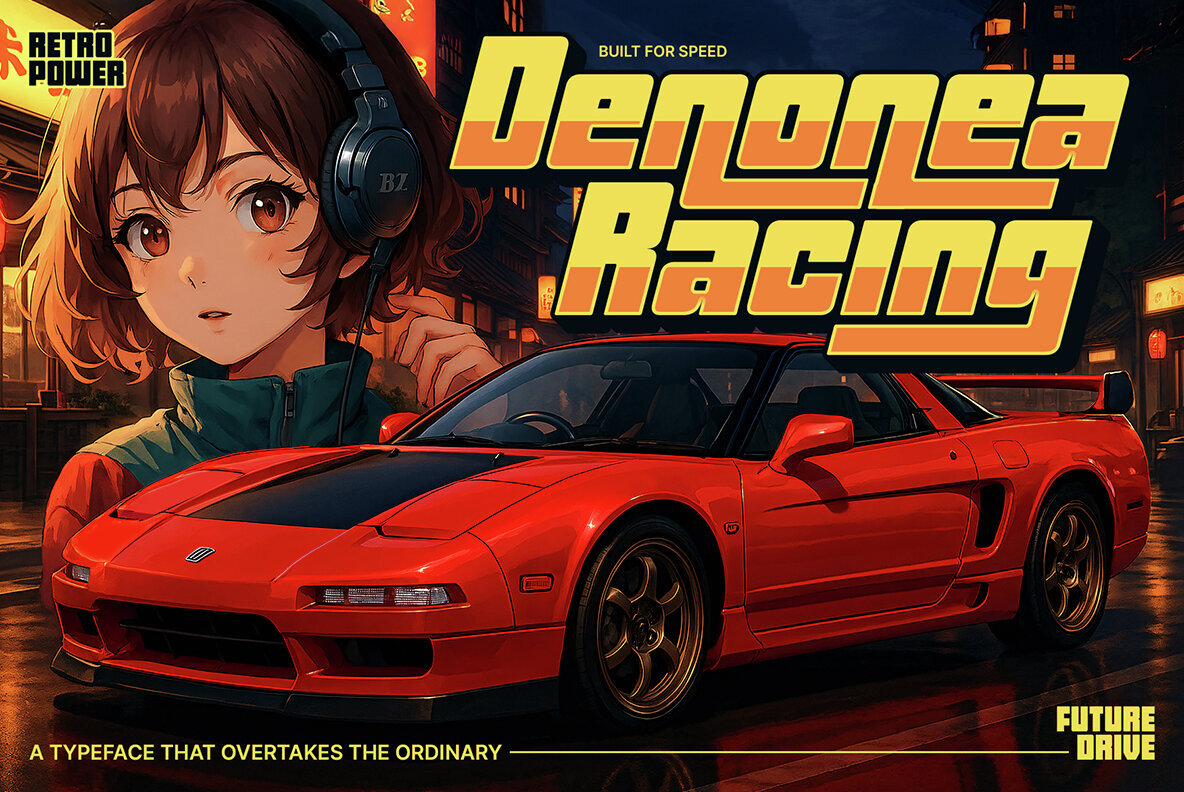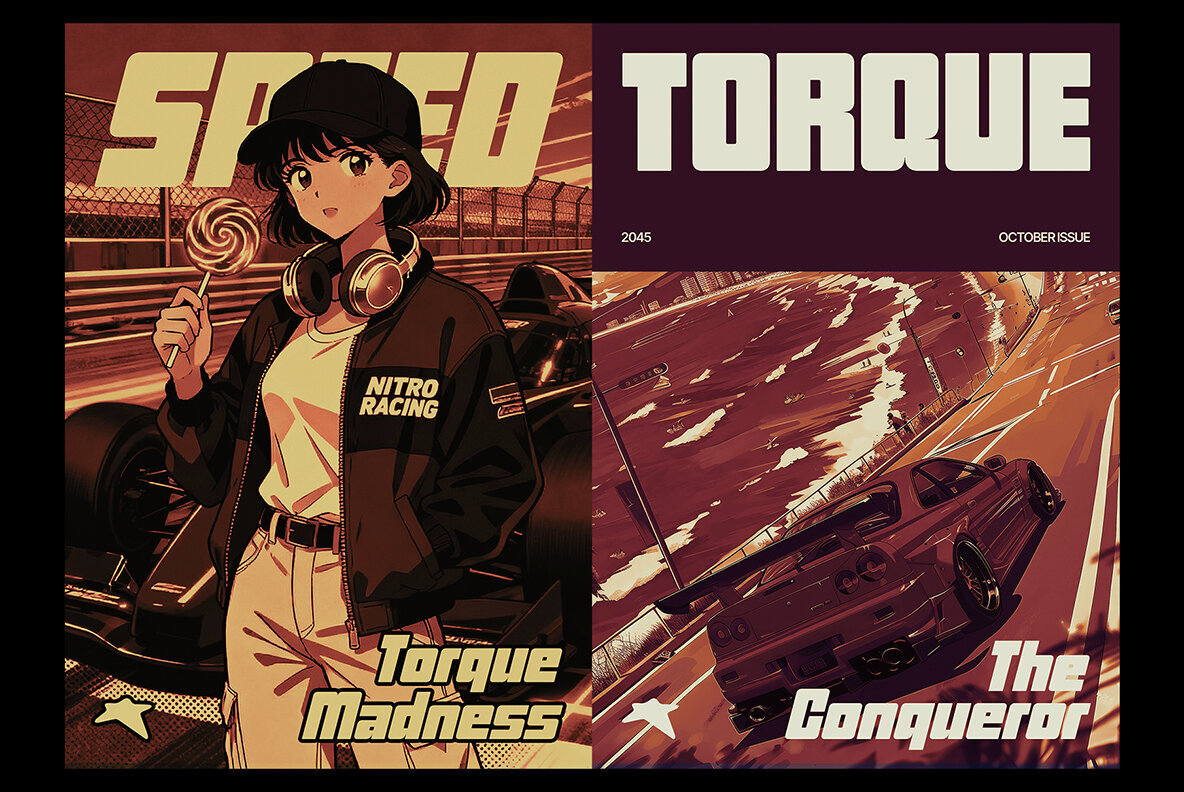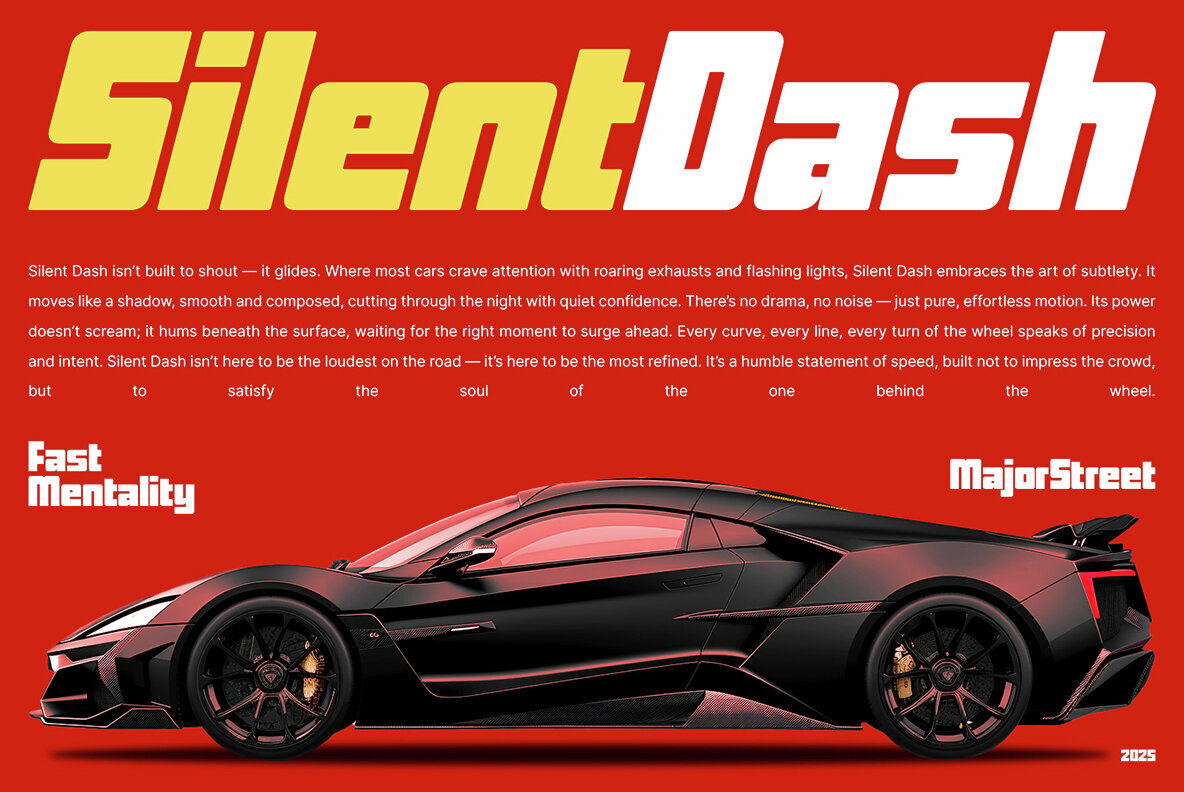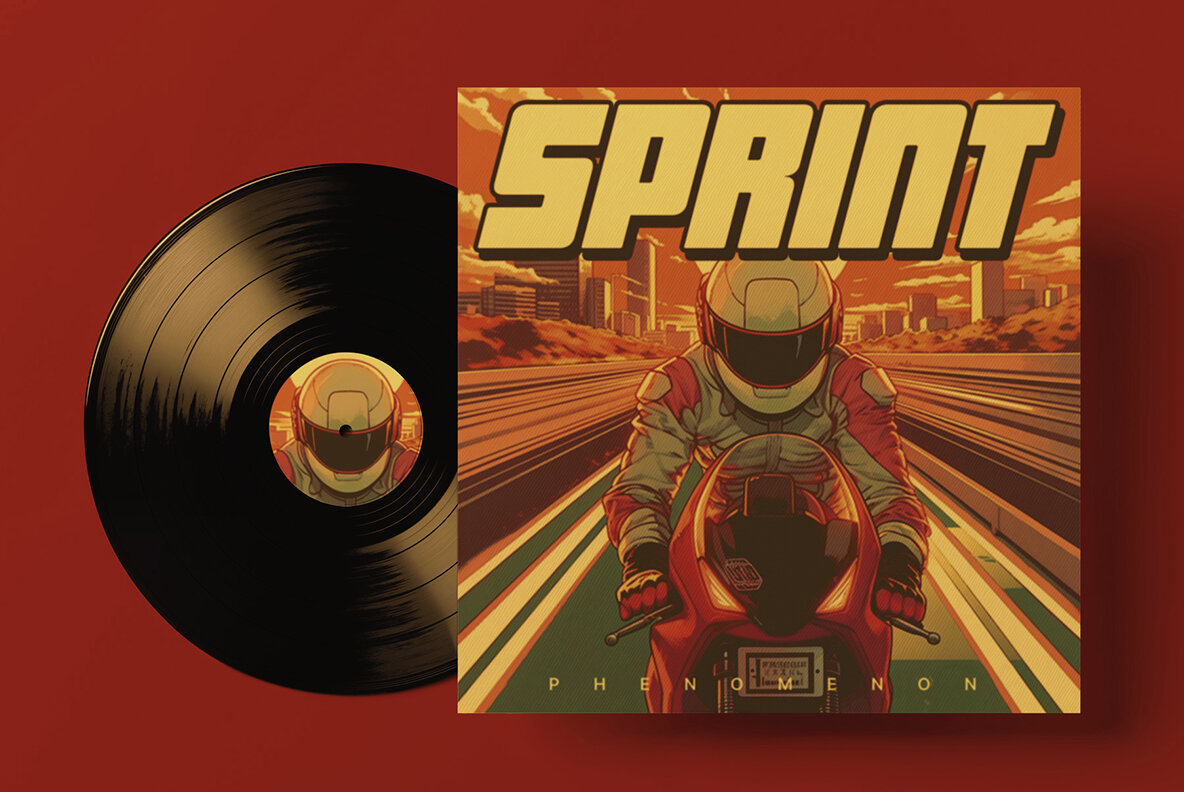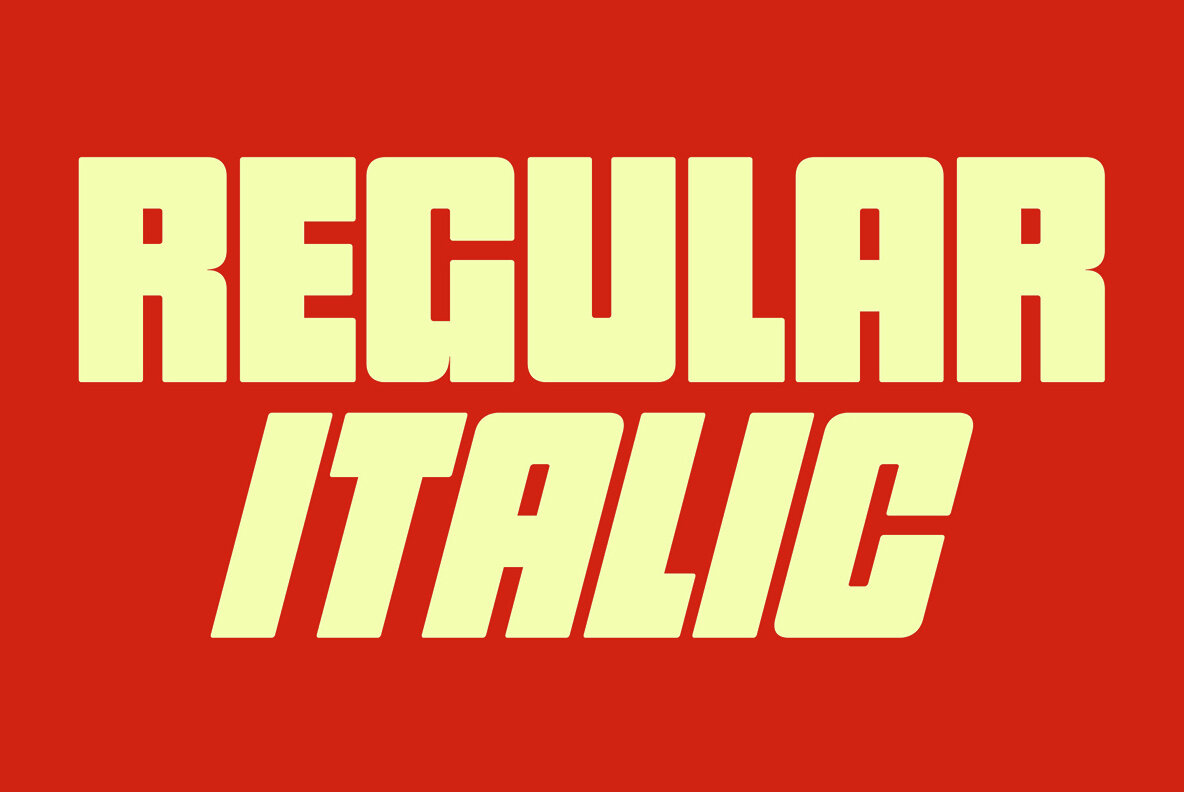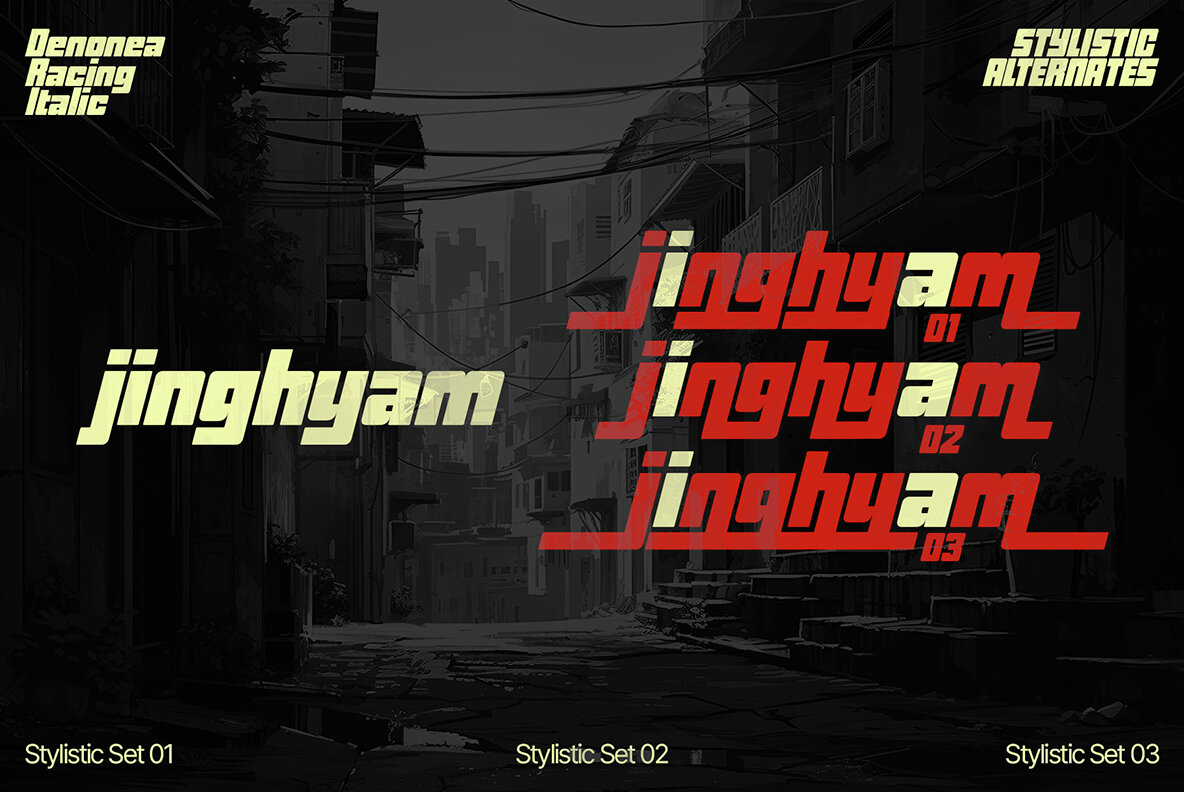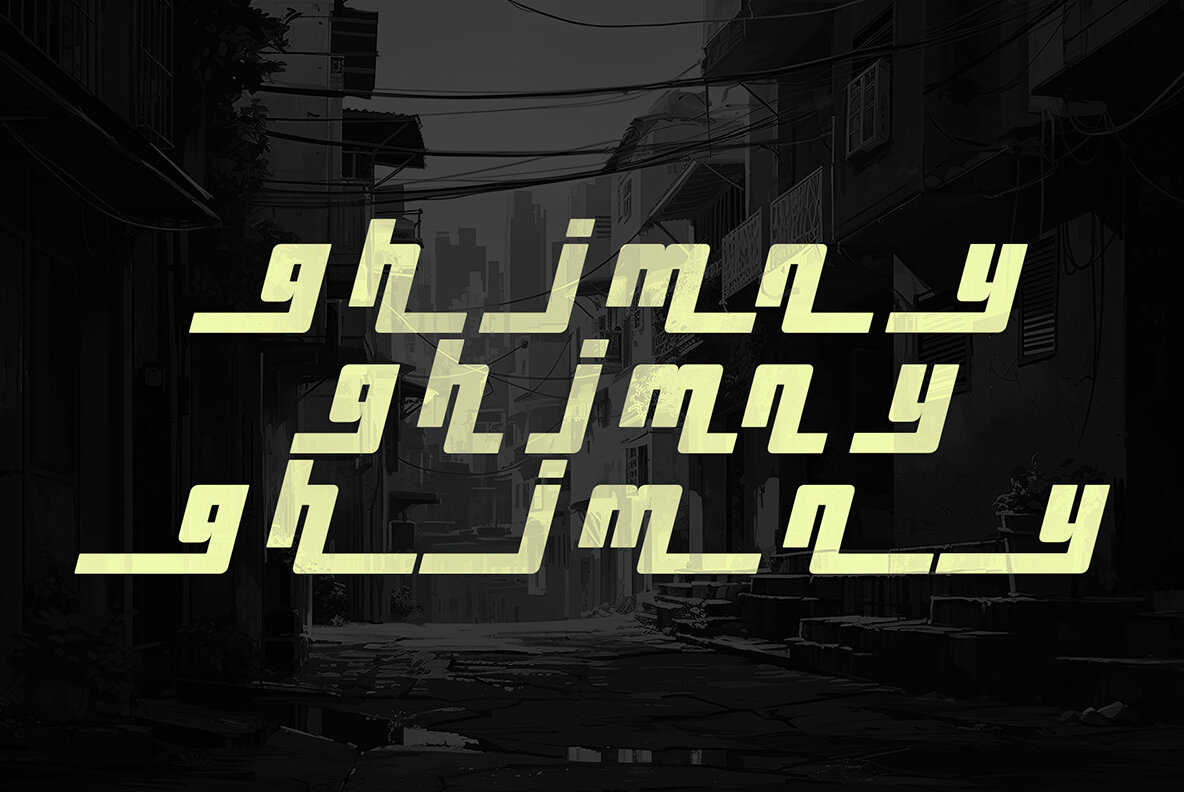
Denonea Racing Font
Denonea Racing channels automotive excitement with a bold, blocky display design. Influenced by motorsport culture and vintage anime graphics, this typeface captures the spirit of fast-paced visuals and retro energy. Designed for projects that demand speed and precision, Denonea Racing is an essential asset for graphic designers working on posters, branding, or editorial layouts that celebrate movement and style. This font offers two distinct styles: Regular, with its stable and commanding letterforms, and Italic, which adds dynamic motion through forward-leaning angles. The Italic version includes exclusive stylistic alternates, providing flexibility for standout typography. Denonea Racing is particularly well-suited for racing-themed materials, editorial titles, and designs with a performance-driven narrative.Denonea Racing Typeface: Built for Speed and Style